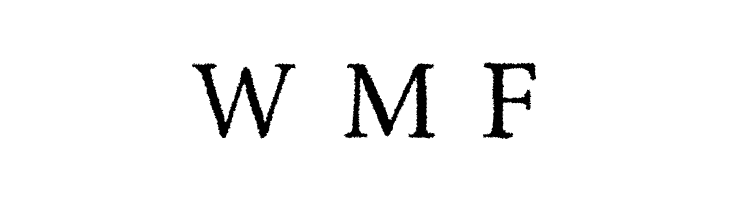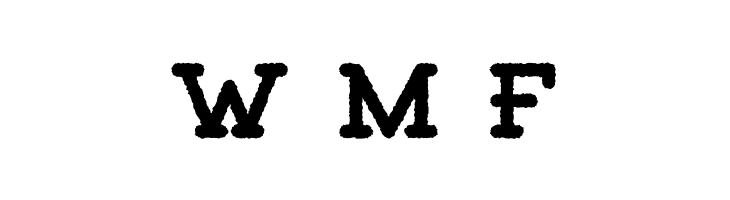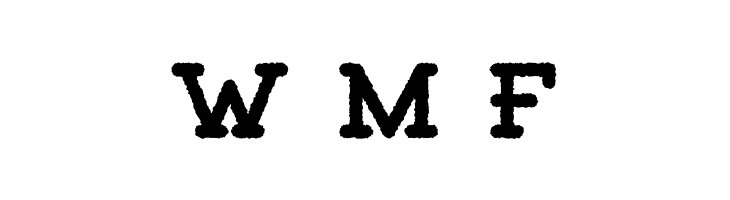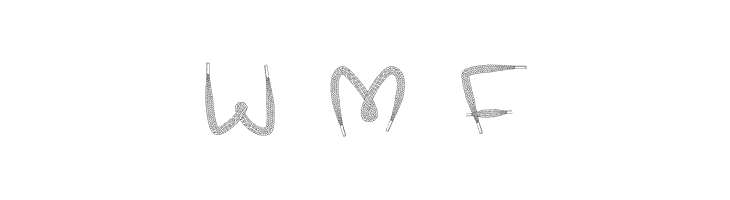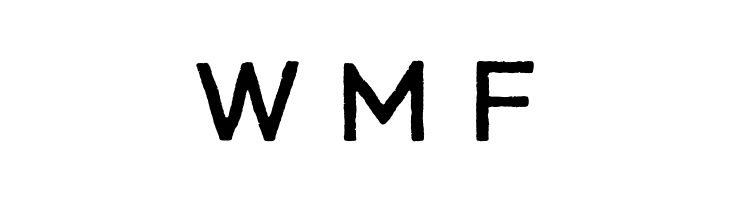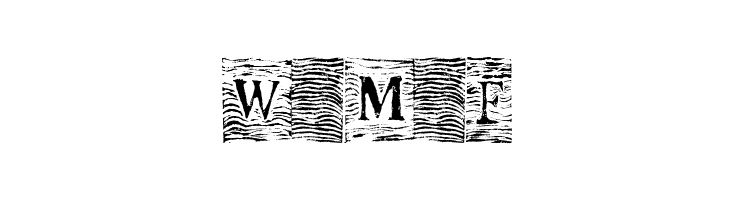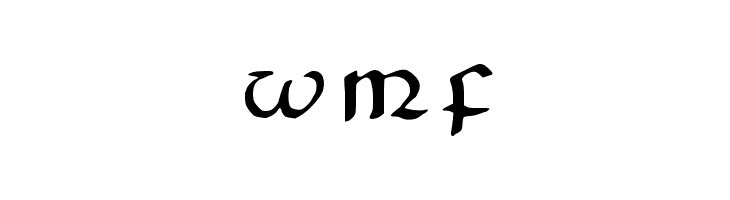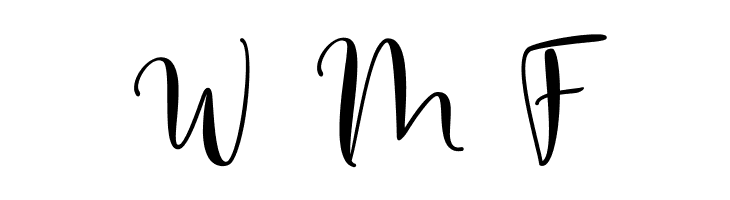
A rugged, textured serif font with a vintage, hand-crafted feel.
A bold, rough-textured font with a vintage, handcrafted appearance.
A bold, textured font with a vintage, handcrafted appearance.
A textured, shoelace-inspired font with a playful and handcrafted appearance.
A bold, expressive brush-style font with a rough, handcrafted appearance.
A bold, textured font with a vintage, hand-crafted appearance.
A bold, textured font with a wood grain effect, ideal for rustic designs.
A bold, calligraphic font with a medieval, handcrafted style.
A stylish and elegant script font with fluid, cursive strokes and a handcrafted feel.
A bold, playful font with a Western-inspired, handcrafted look.